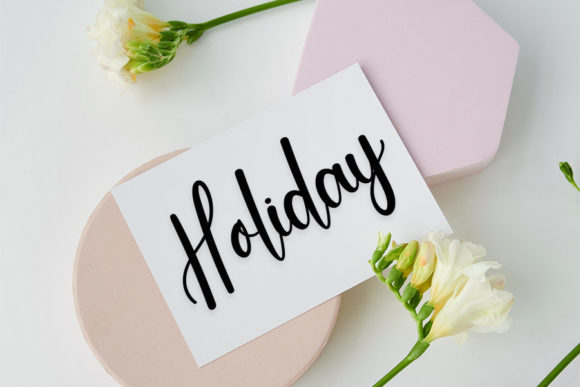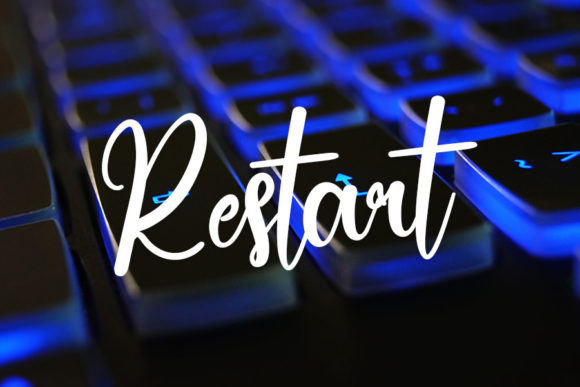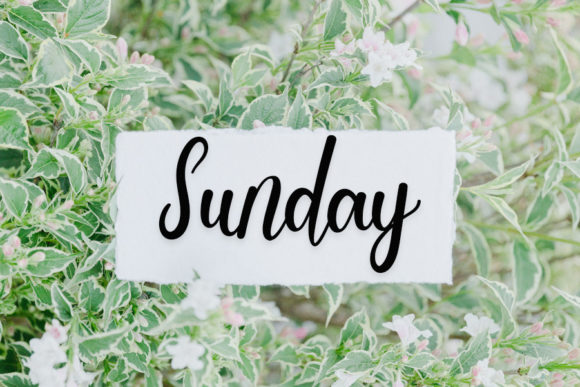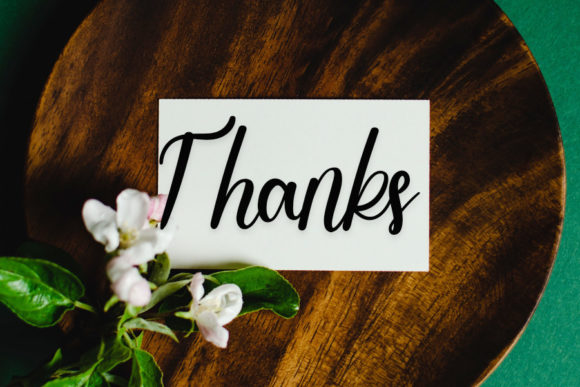
Startink Font
About Startink Font
“Startink” is a friendly handwritten font that has been meticulously designed to become a true favorite among designers and typographers. This font beautifully combines the elegance of classic calligraphy with a fresh and contemporary aesthetic, making it a versatile choice for a wide range of applications.
The charm of Startink lies in its ability to retain its classy calligraphic influences while exuding a modern and fresh vibe. The subtle strokes and elegant curves are reminiscent of traditional handwriting, lending a personal and intimate feel to your text.
Despite its classic influences, Startink feels contemporary. It’s a font that speaks to the past while being firmly rooted in the present. Whether you’re designing a logo, crafting an invitation, or creating a blog post, Startink can help you convey your message with style and clarity.
Moreover, Startink is not just about aesthetics. It’s also about functionality. It’s a versatile font that works well in a variety of contexts, from formal documents to creative projects. With its clean lines and clear legibility, Startink is easy to read, making it a great choice for both print and digital media.
In a world where first impressions matter, Startink can help you make a lasting one. Its unique blend of classic and contemporary, form and function, makes it a standout choice for designers and content creators alike. Choose Startink, and let your words shine.